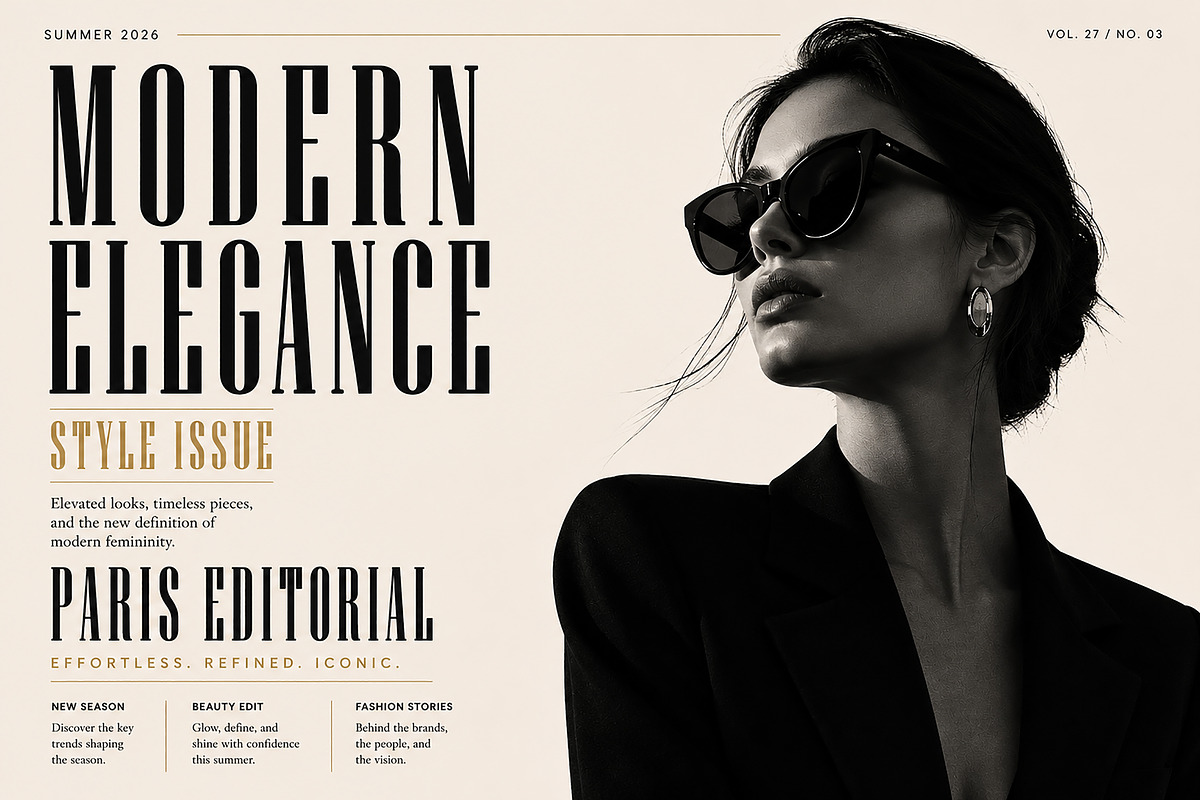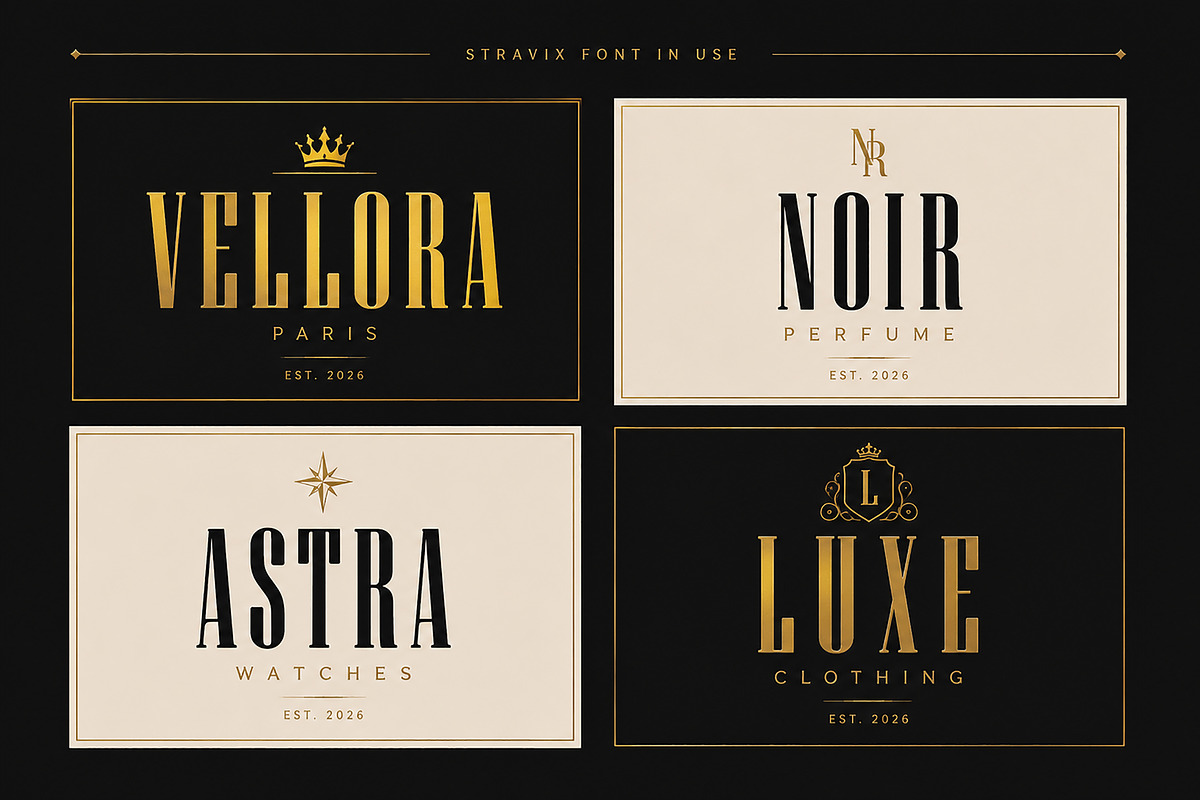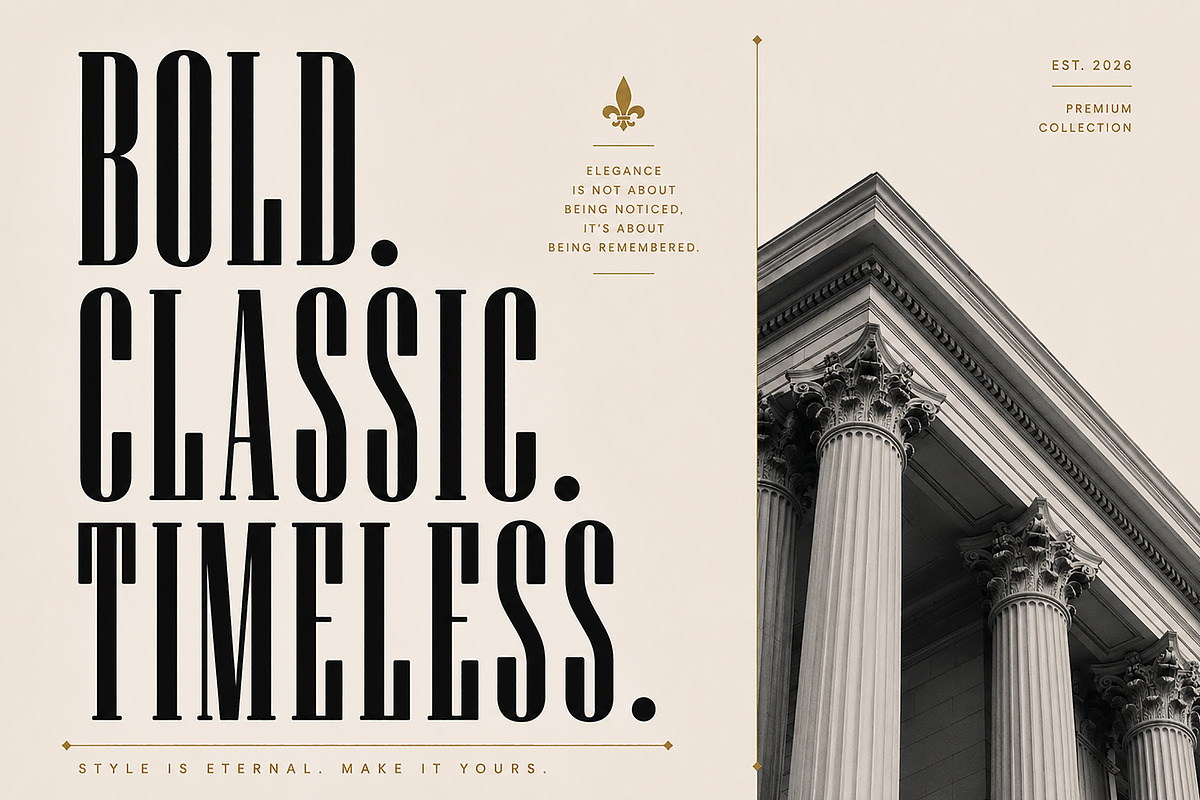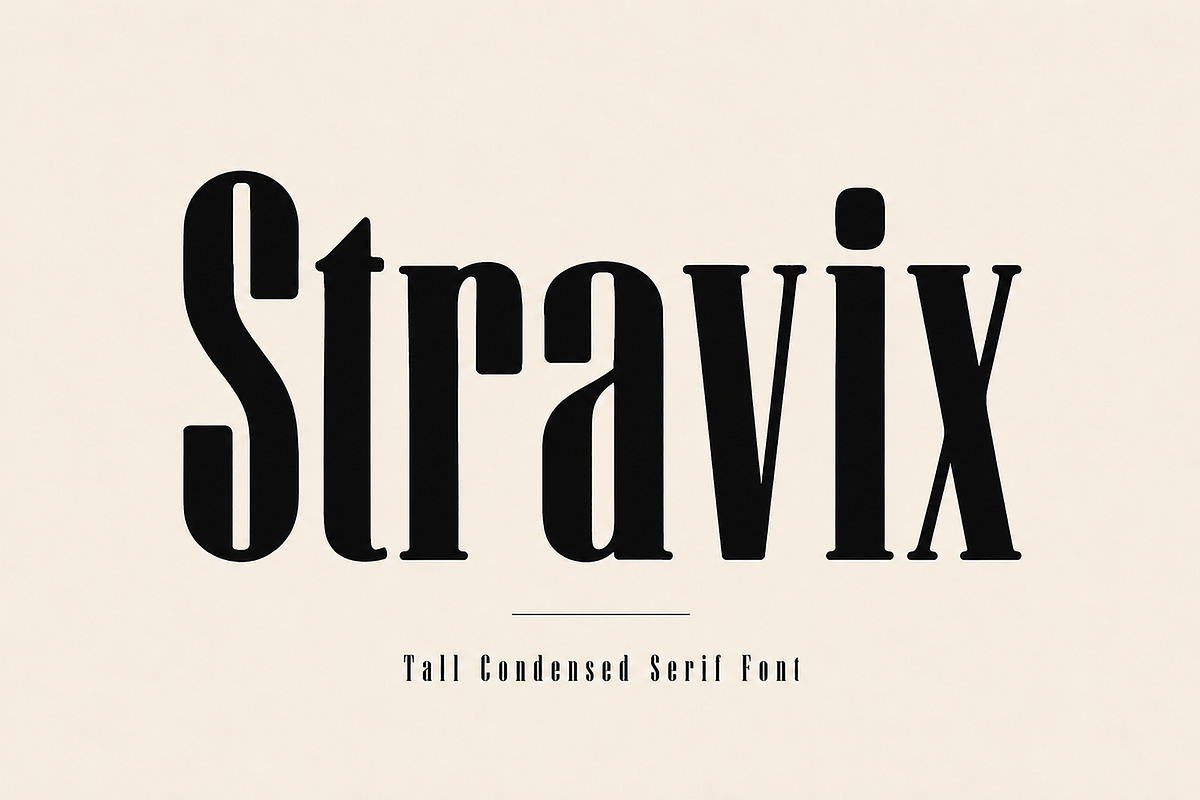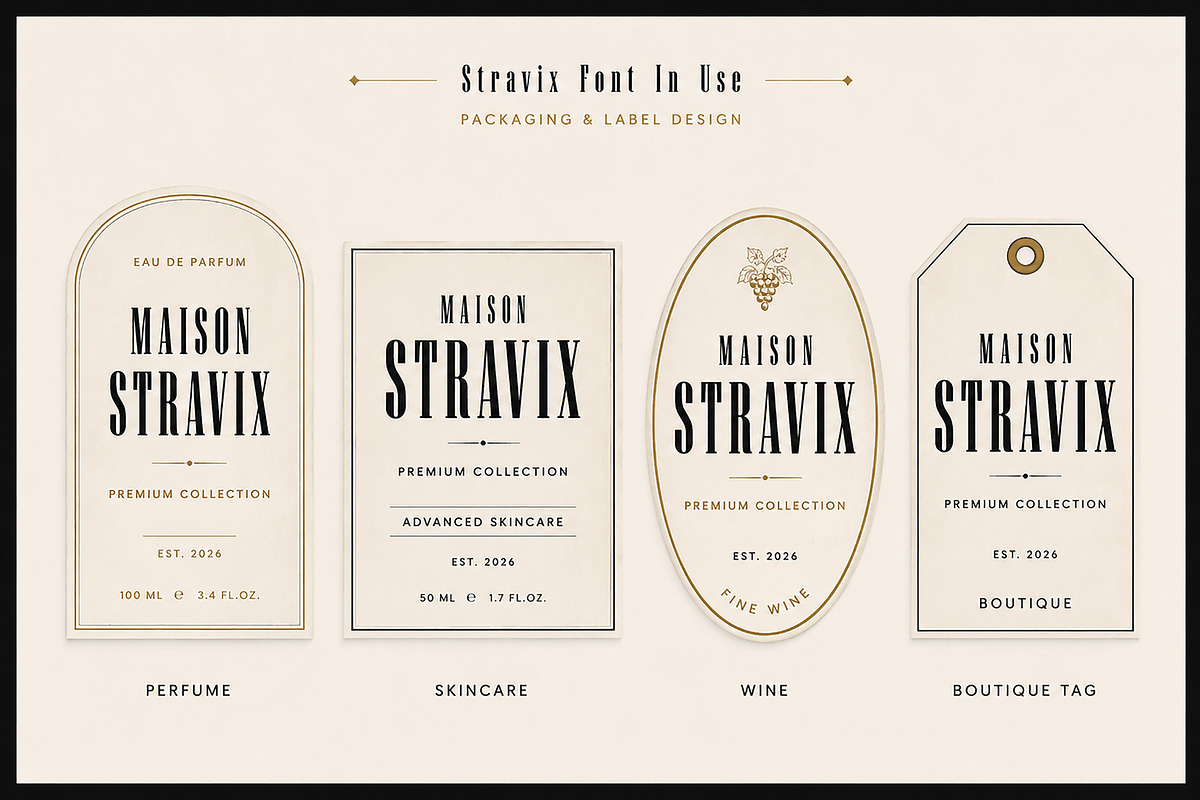
STRAVIX – Tall Condensed Serif Font
Description
STRAVIX is a bold, tall condensed serif typeface designed to bring timeless elegance and modern sophistication to your creative projects. With its refined proportions, sharp serifs, and strong vertical structure, STRAVIX delivers a luxurious editorial aesthetic that instantly captures attention.
Perfect for fashion branding, luxury packaging, magazine headlines, premium logos, social media graphics, and high-end advertising, this typeface combines classic serif elegance with a contemporary condensed style. Whether you're creating a luxury perfume label, boutique branding, or an eye-catching poster, STRAVIX offers a confident and memorable visual presence.
Its clean, high-contrast letterforms make it especially suitable for large display sizes where every character can shine with maximum impact.
Luxury Branding
Fashion Logos
Magazine Headlines
Editorial Design
Premium Packaging
Perfume Labels
Skincare Branding
Wine Labels
Boutique Identity
Beauty Products
Posters
Invitations
Marketing Materials
Uppercase & Lowercase Letters
High-Quality Display Typeface